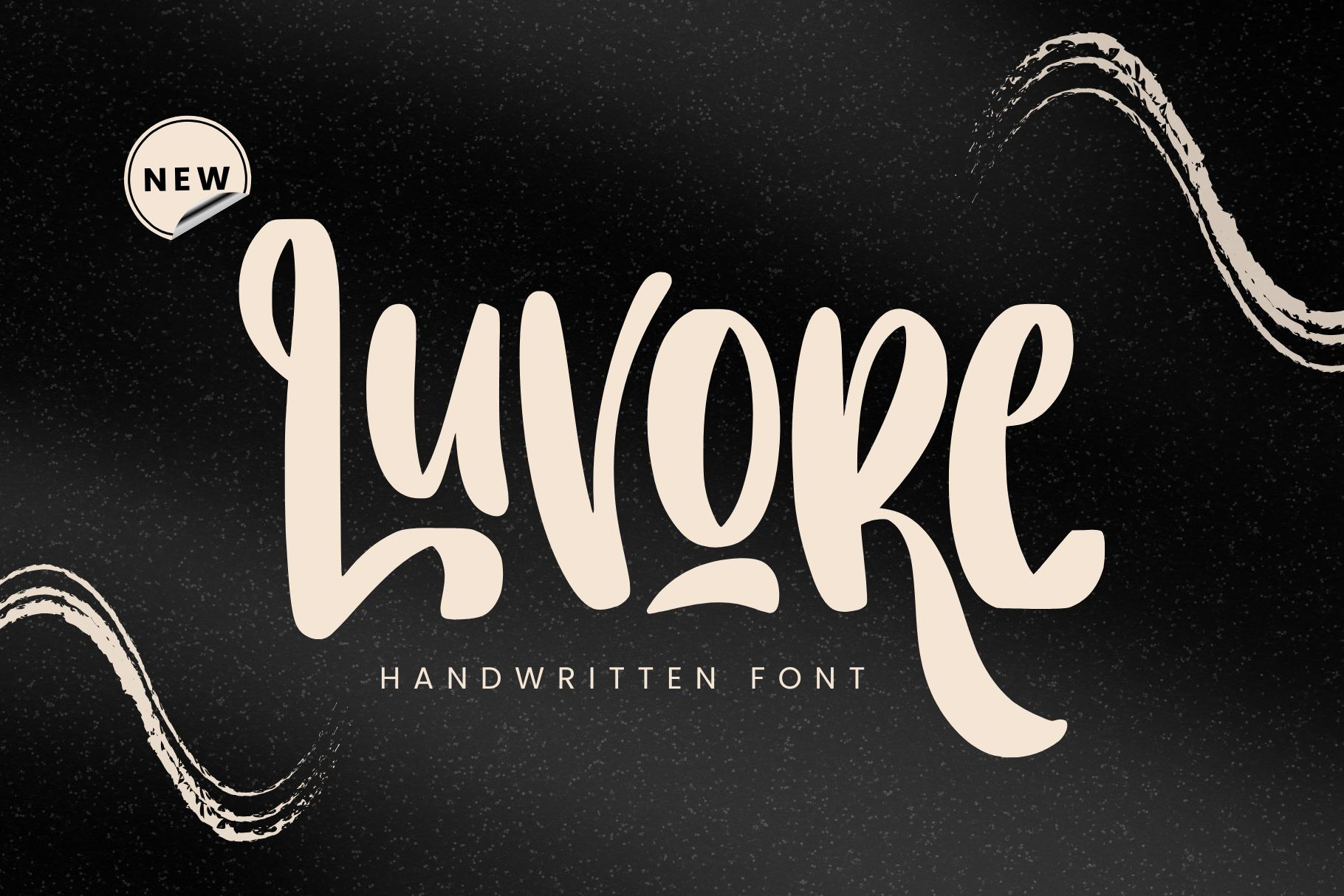
Luvore - Handwritten Font
Luvore is a handwritten font with graceful strokes and a natural flow. Ideal for invitations, greeting cards, and branding, its delicate yet stylish design brings a touch of warmth and elegance to creative projects.